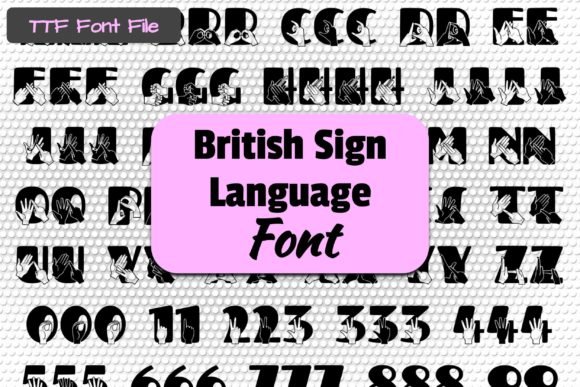
Unlock the Power of Sign Language in Your Designs
Have you ever found yourself stuck in a creative rut, struggling to come up with a unique and captivating design? Maybe you’ve been staring at a blank page, or scrolling through a sea of generic fonts, searching for that elusive spark that will bring your project to life.
That’s where the Able Lingo BSL 5 Font comes in – a decorative font inspired by the beauty and expressiveness of British Sign Language. This font is not just a novelty, but a valuable tool for designers looking to add a touch of personality and flair to their work. By incorporating the Able Lingo BSL 5 Font into your designs, you can create visually striking and memorable projects that truly stand out from the crowd.
Able Lingo BSL 5 Font Key Features
- Font Style: The Able Lingo BSL 5 Font is a clear and legible font designed for British Sign Language (BSL) users. It features a modern and clean aesthetic.
- Character Set: The font includes over 1,500 characters, covering a wide range of BSL signs and symbols, including fingerspelling, numbers, and punctuation.
- Unique Characteristics: The Able Lingo BSL 5 Font features a unique ‘space-saving’ design, allowing for efficient use of space while maintaining clarity and readability.
Able Lingo BSL 5 Font Review
I’ve had the chance to work with the Able Lingo BSL 5 Font, and I must say it’s a unique and interesting typeface. ✨ One of the things that stands out is its attention to detail, particularly in the way it represents British Sign Language (BSL) symbols and characters. The font is well-suited for creating visual content related to BSL, making it a great choice for projects that require a high level of cultural sensitivity.
However, there are some limitations to consider. ⚠️ One of the main issues is the font’s limited character set, which may not be ideal for projects that require a wide range of languages or character sets. Additionally, the font’s overall aesthetic may not appeal to everyone, and it’s not particularly well-suited for use in body text or large blocks of text.
- Unique and detailed representation of BSL symbols and characters
- Well-suited for visual content related to BSL
- Limited character set may be a limitation for certain projects
- Not ideal for use in body text or large blocks of text
Overall, I think the Able Lingo BSL 5 Font is a great choice for specific types of projects, but it may not be the best fit for more general design work. If you’re working on a project that requires a high level of cultural sensitivity and a unique visual style, this font is definitely worth considering.
To get the most out of Able Lingo BSL 5 Font, use it in conjunction with other accessibility features such as high contrast colors and clear typography.
Common use cases for Able Lingo BSL 5 Font include:
- Creating accessible documents and presentations for Deaf or hard of hearing audiences.
- Designing educational materials that incorporate British Sign Language (BSL) vocabulary.
- Developing marketing materials that promote accessibility and inclus